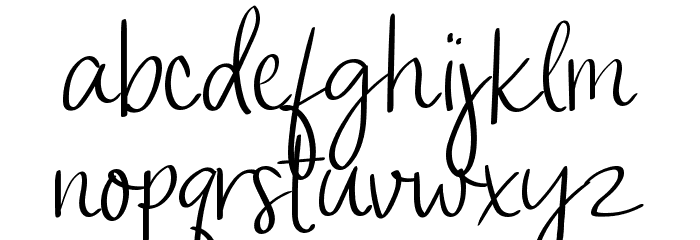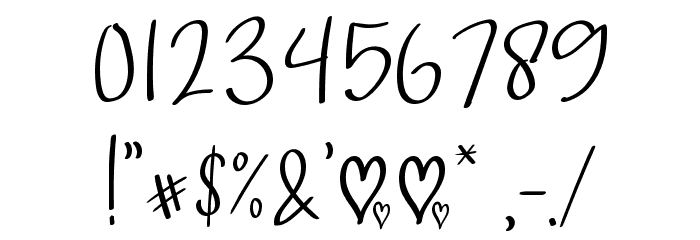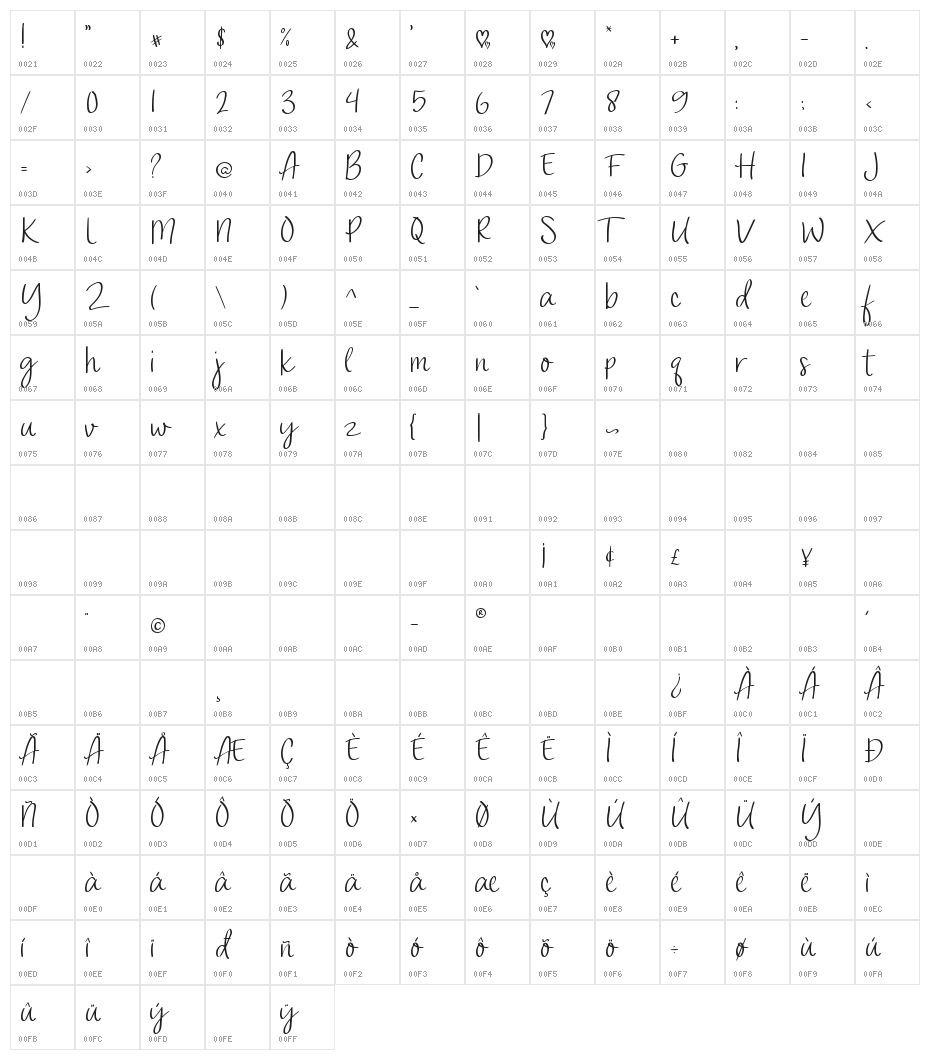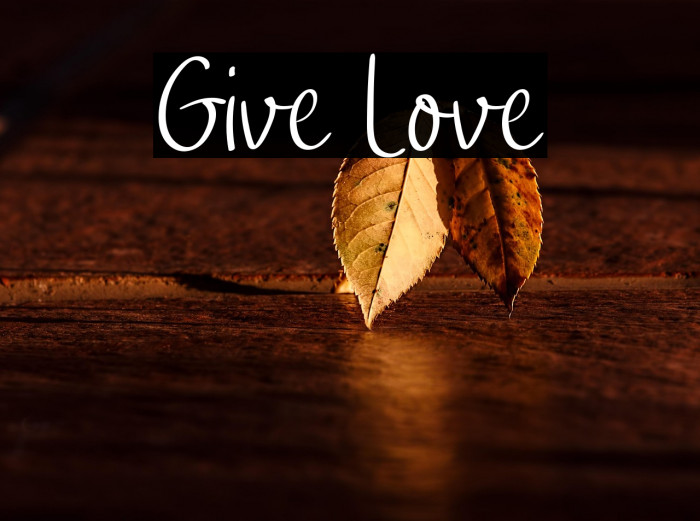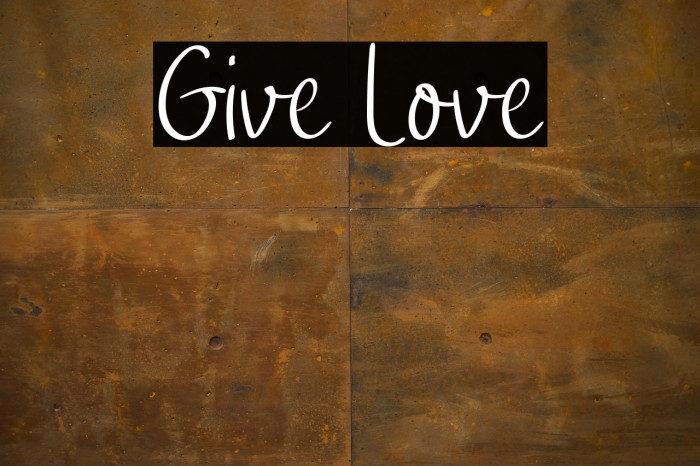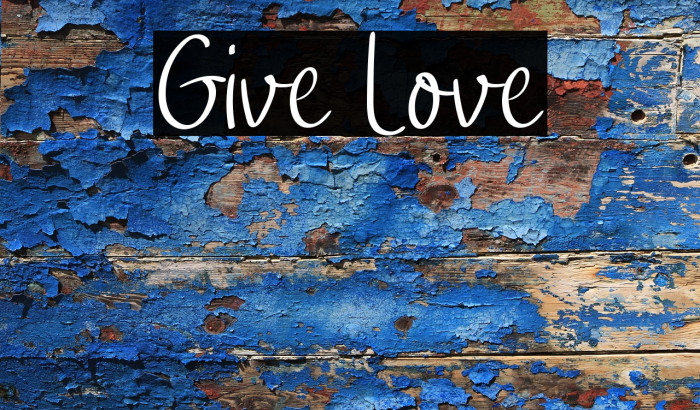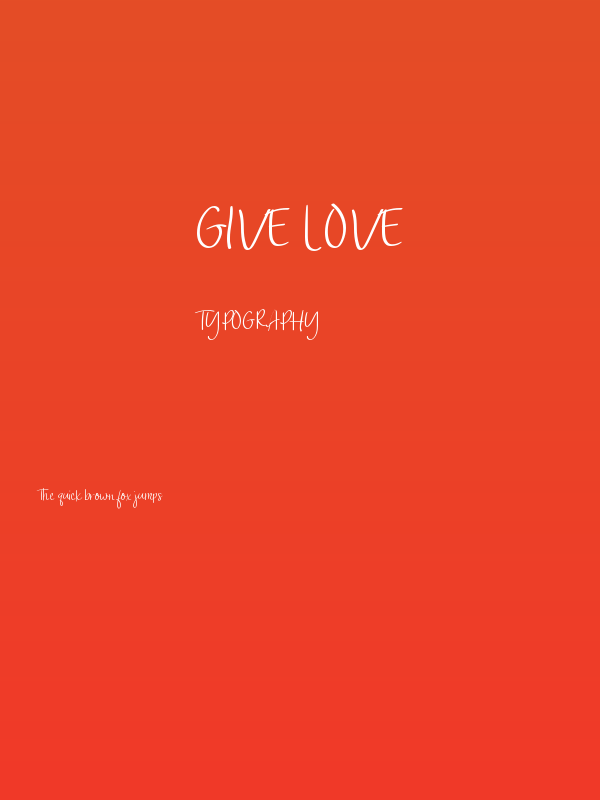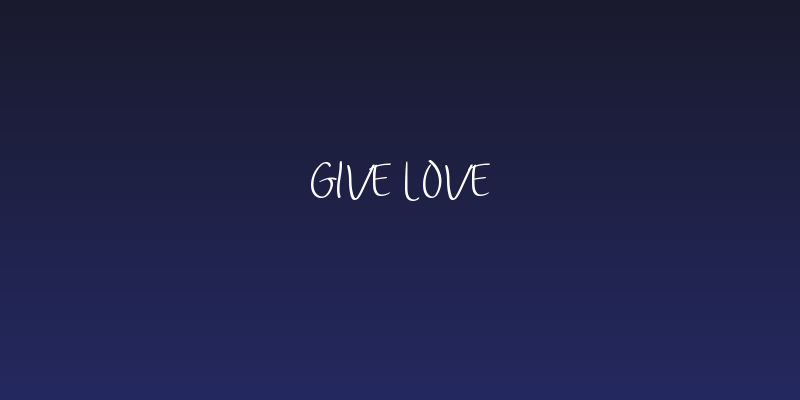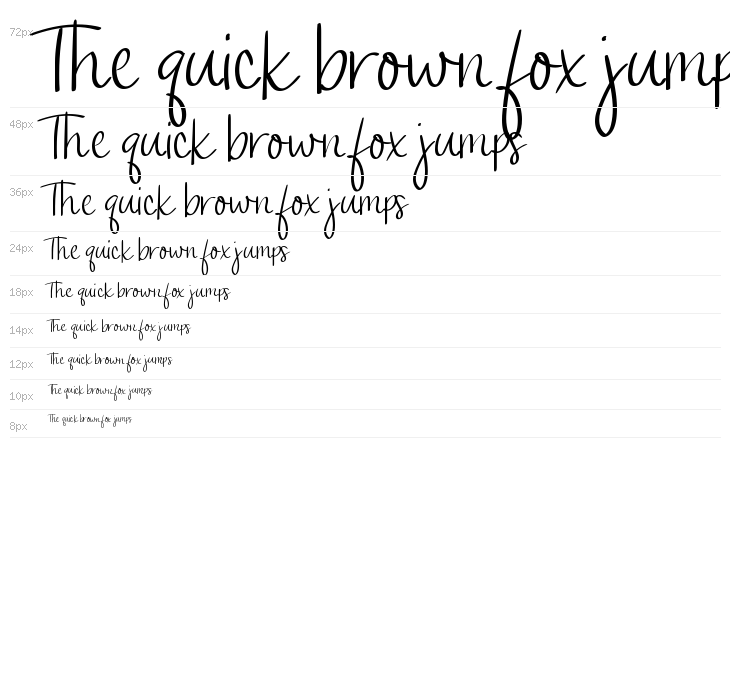
Give Love Font
This font exudes a playful and whimsical charm, characterized by its handwritten style that mimics the fluidity and spontaneity of natural handwriting. The letters are slightly slanted, giving it an informal and relaxed appearance. The strokes are smooth and consistent, with a medium thickness that ensures readability while maintaining a casual aesthetic. The uppercase letters are tall and elegant, while the lowercase letters are more rounded and approachable. The numbers and special characters follow the same playful style, making the font versatile for various creative applications. Its overall design is perfect for projects that require a personal touch, such as greeting cards, invitations, or social media graphics.
A playful, handwritten font with a whimsical and casual style.
- Proposed Projects: Ideal for greeting cards, invitations, social media graphics, and personal branding.
- Overall Style: Casual, Whimsical
- Use Case: Headlines, Logos, Invitations